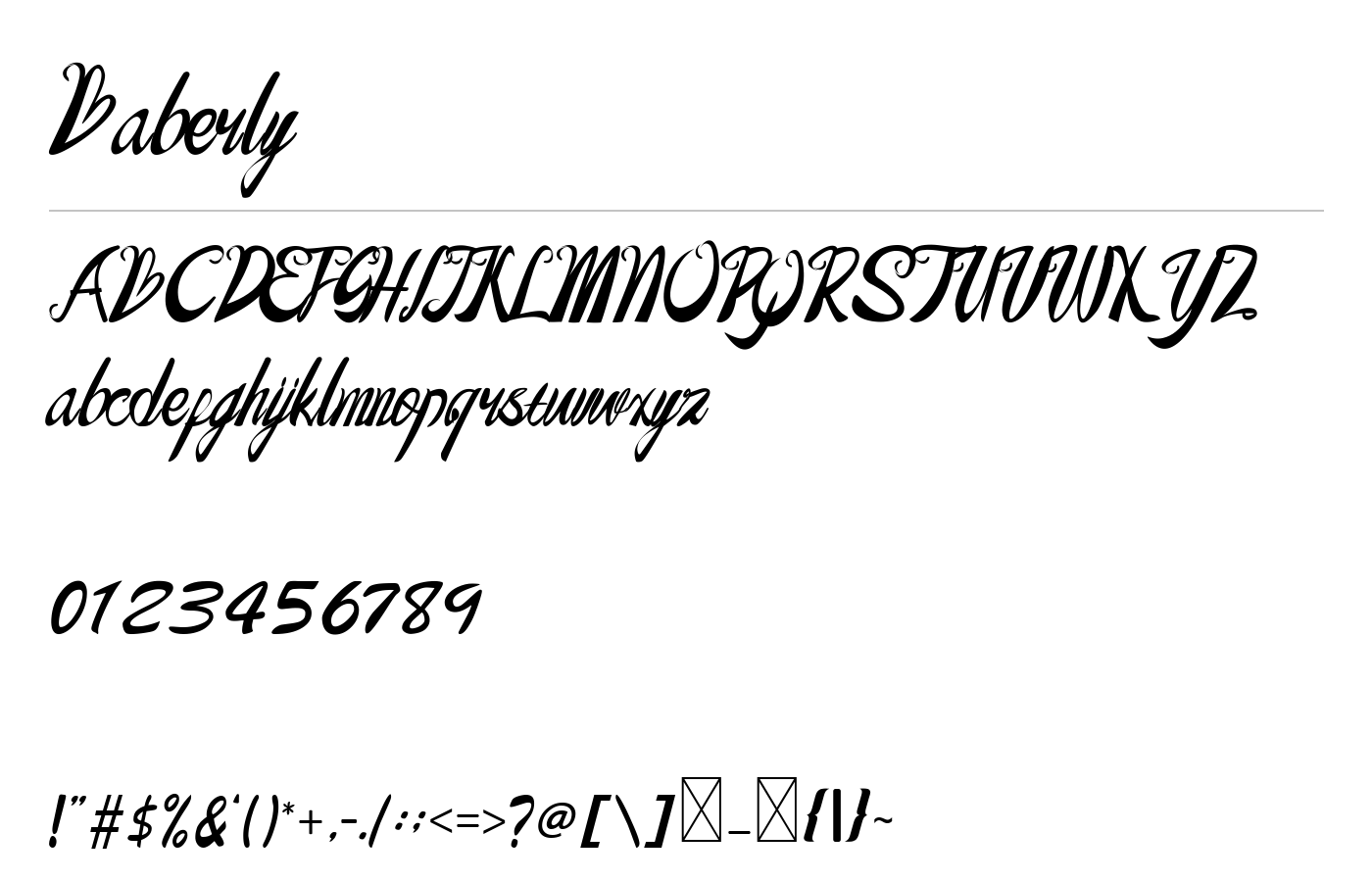
Baberly is an elegant script font with a smooth, flowing style that combines both delicate and bold strokes, creating a dynamic and lively appearance. Its slender, slightly condensed letterforms and distinctive curves make it ideal for sophisticated branding, invitations, and fashion-related designs where a touch of personality and elegance is desired. This font works best in headlines or display uses where its unique character can truly shine.
Baberly Font
About Baberly Font
| Font family | Baberly Font |
| Designer | Bima Amei Prayansyah |